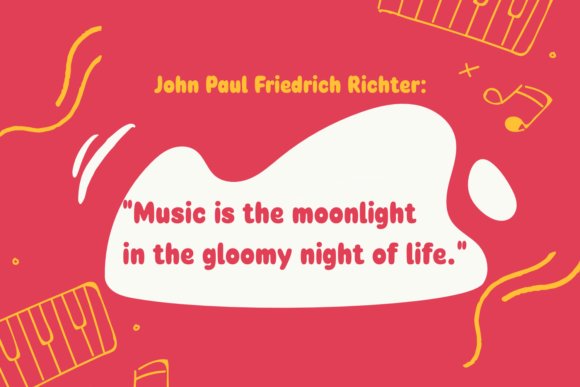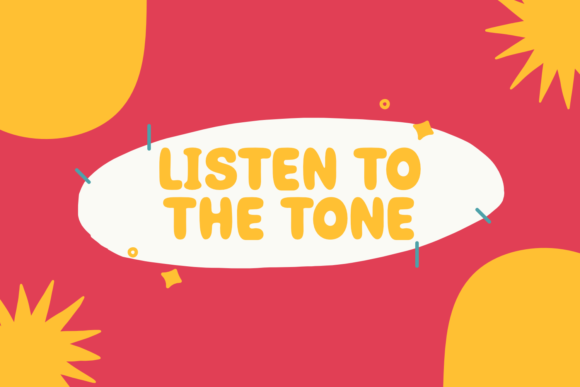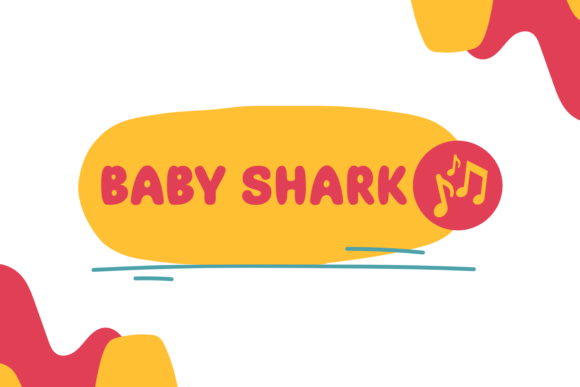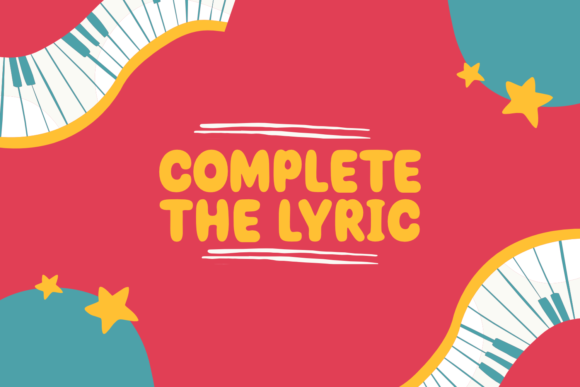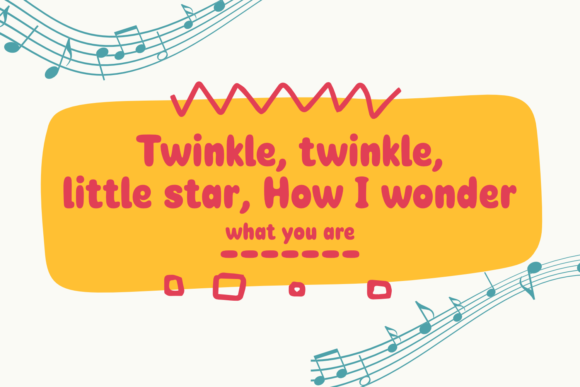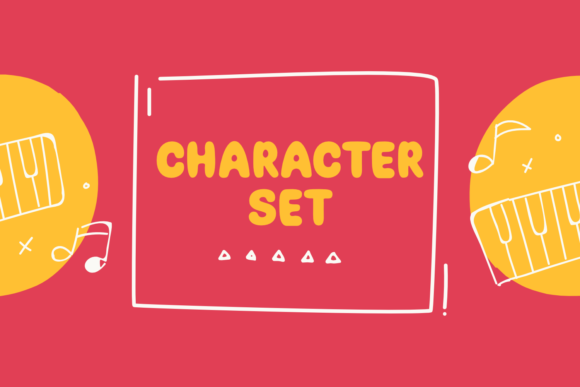
Catchy Melody Font: The Ultimate Display Font for Friendly Designs
Are you looking for a font that exudes friendliness and playfulness? Look no further than the Catchy Melody font! This childish, bold, and easy-to-read display font is perfect for a variety of design projects, from crafts and digital design to presentations and greeting cards. In this article, we’ll dive into the features and benefits of the Catchy Melody font, and explore how it can become your go-to font for all your design needs.
The Characteristics of Catchy Melody Font
Catchy Melody is a display font that boasts a unique and charming personality. Its childish and bold design makes it perfect for designs that require a friendly and approachable tone. The font’s ease of readability ensures that your message gets across clearly, whether you’re using it for a title, heading, or body text.
One of the standout features of Catchy Melody is its versatility. This font can be used for a wide range of design projects, including:
- Crafts: Use Catchy Melody to add a personal touch to your handmade crafts, such as scrapbooking, card making, and DIY projects.
- Digital Design: Add a playful and friendly touch to your digital designs, including social media graphics, blog posts, and website headers.
- Presentations: Make your presentations more engaging and fun with Catchy Melody, perfect for titles, headings, and bullet points.
- Greeting Cards: Create personalized and eye-catching greeting cards for special occasions, such as birthdays, holidays, and weddings.
Why Choose Catchy Melody Font?
So, why should you choose Catchy Melody font for your design projects? Here are just a few reasons:
- Friendliness: Catchy Melody conveys impeccable friendliness, making it perfect for designs that require a warm and approachable tone.
- Readability: The font’s bold and easy-to-read design ensures that your message gets across clearly, even at small sizes.
- Versatility: Catchy Melody can be used for a wide range of design projects, from crafts and digital design to presentations and greeting cards.
- Uniqueness: The font’s childish and playful design sets it apart from more traditional fonts, making it perfect for designs that require a bit of personality.
Tips for Using Catchy Melody Font
To get the most out of Catchy Melody font, here are a few tips to keep in mind:
- Use it as a display font: Catchy Melody is perfect for titles, headings, and other display text. Use it to add a bold and playful touch to your designs.
- Experiment with colors: The font’s bold design makes it perfect for use with bright and bold colors. Experiment with different color combinations to find the perfect look for your design.
- Pair it with other fonts: Catchy Melody can be paired with other fonts to create a unique and interesting design. Try pairing it with a sans-serif font for a fun and playful look.
In conclusion, Catchy Melody font is a versatile and fun display font that conveys impeccable friendliness. Its childish, bold, and easy-to-read design makes it perfect for a wide range of design projects, from crafts and digital design to presentations and greeting cards. With its uniqueness, readability, and versatility, Catchy Melody has the potential to become your favorite go-to font, no matter the occasion! So why not give it a try and see how it can add a playful and friendly touch to your designs?